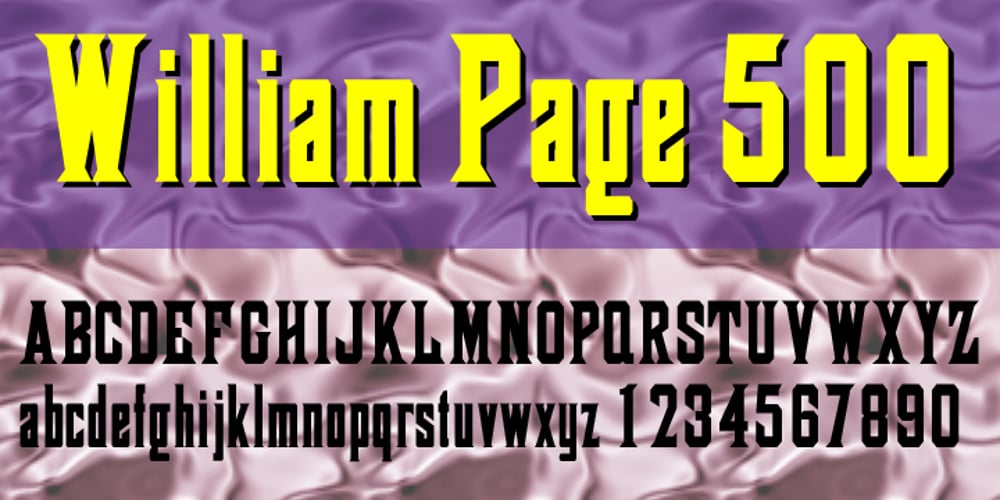
William Page 500
William Page 500 font
William Page 500 Font Family was designed by William Hamilton Page, Jordan Davies and published by Wooden Type Fonts. William Page 500 contains 1 styles and family package options. A revival of one of the popular wooden type fonts of the 19th century, somewhat condensed, square.